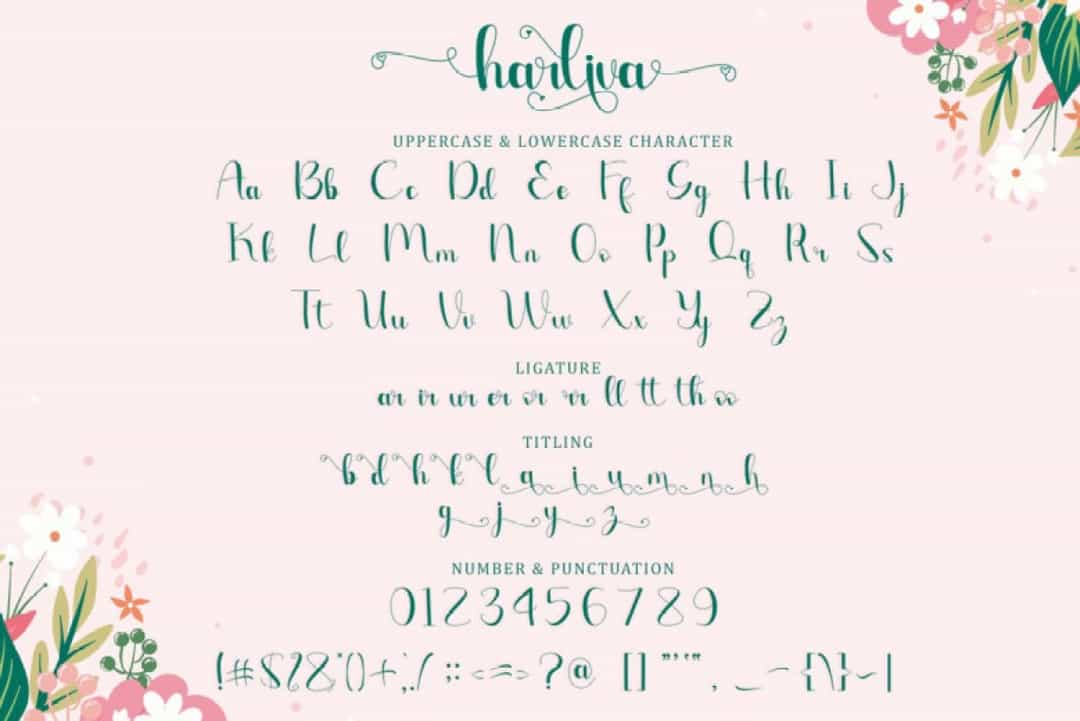
Harliva is a delicate handwritten font by its designer and looks great especially in written works. This font will give your brand and writing the boost that you need because your writing will look more elegant and beautiful. Harliva gives your brand and writing a luxurious and beautiful touch; suitable for elegant branding, photo overlays, watermarked greeting cards, posters, and invitations; business cards, invitations, weddings, fashion photography, letters, stationery, etc.